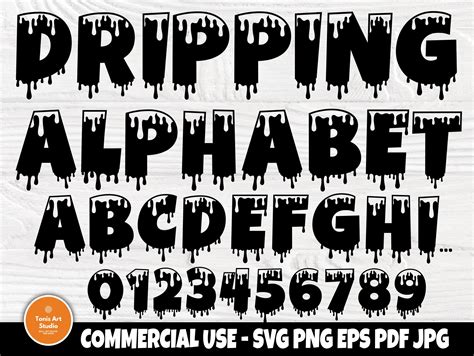
Download now to add unique style and personality to your work. Web looking for the perfect font for your project? Dripping font generator tool will let you convert simple and normal font style into your desired font. Simply type or copy the normal text into the blank text field. Drip letters are used for graffiti and paint designs. Web create a text effect dripping with our online custom font generator. Dripping fonts have letters that look like they are wet or have liquid flowing down them. Download dripping fonts for free in the highest quality available. Get creative with our collection of free dripping fonts. Enhance your text with our innovative font style text effect generator!
Enhance your text with our innovative font style text effect generator! Simply type or copy the normal text into the blank text field. Fontget has the largest selection of dripping fonts and the best dripping generator in the marketplace. Get creative with our collection of free dripping fonts. Web looking for the perfect font for your project? Web create a text effect dripping with our online custom font generator. Dripping font generator tool will let you convert simple and normal font style into your desired font. Drip letters are used for graffiti and paint designs. Download dripping fonts for free in the highest quality available. Download now to add unique style and personality to your work. We offer fast servers so you.